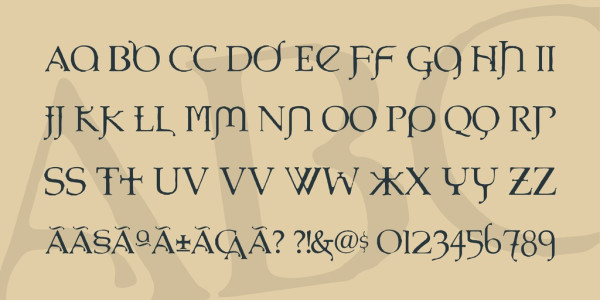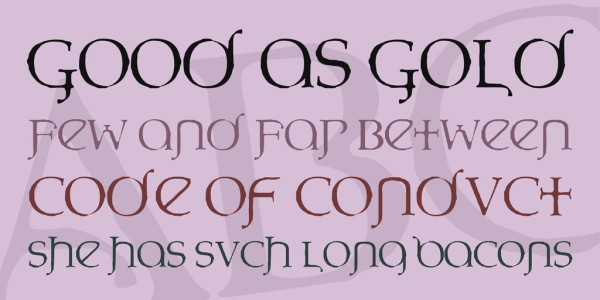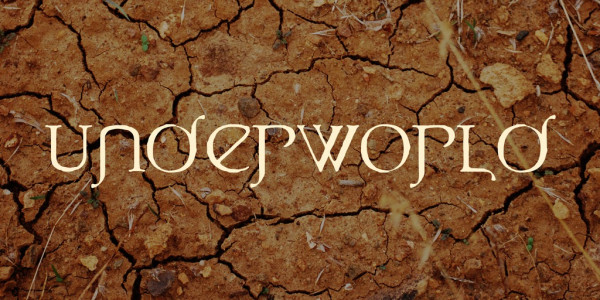
UnderWorld Font
UnderWorld Font – Based on the font used for the movie underworld evolution (t.26 Eremaeus) i didn’t find a free one that looks like this one so based on the glips map of that font i have retraced each character, except for the capital E that doesn’t look like the one on the logo of the movie, and also the euro sign is the logo itself